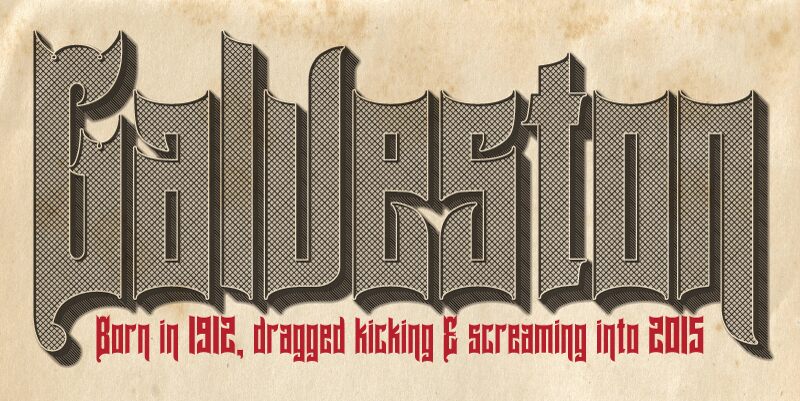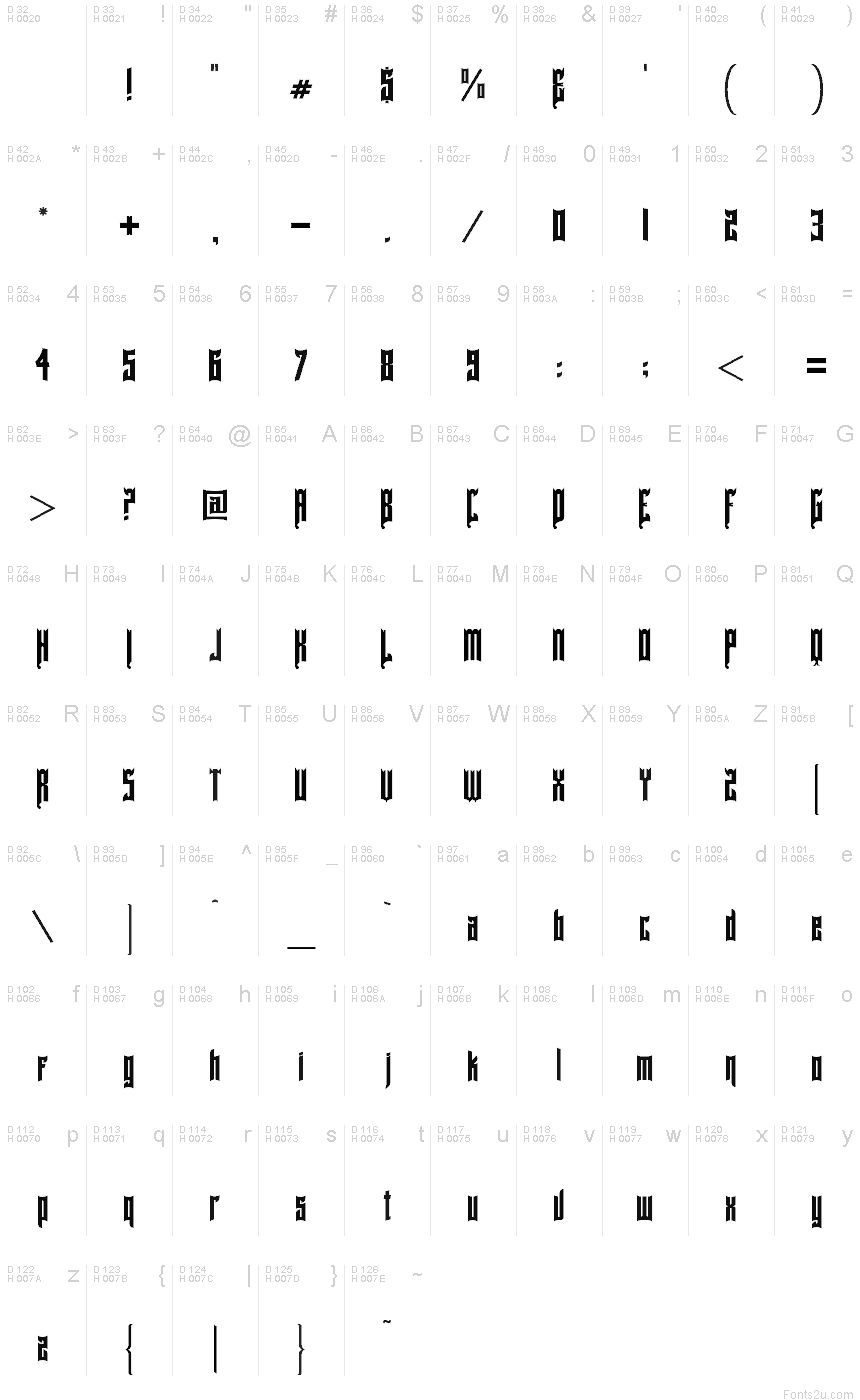
GalvestonTX
GalvestonTX is derived from a Sanborn Insurance Map cover published in 1912 for the city of Galveston, Texas. It is my first font and hopefully a loving homage to the works of the artist who produced the original on which it is based.
At this stage I've included limited language support, with a view to expanding this at a later stage.